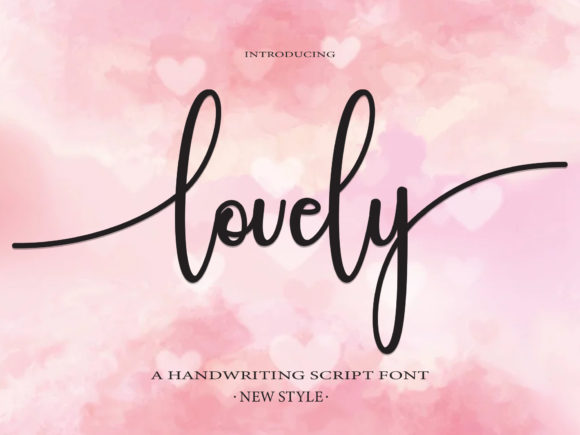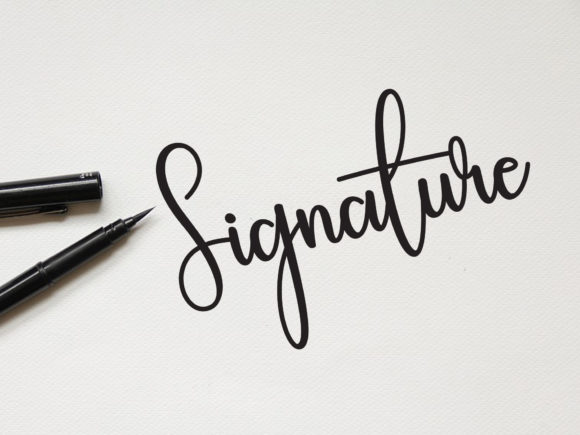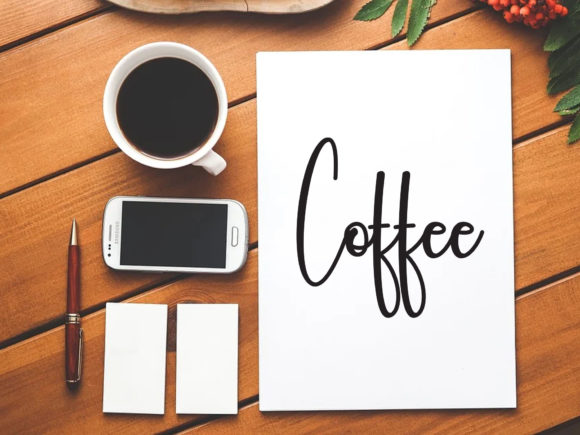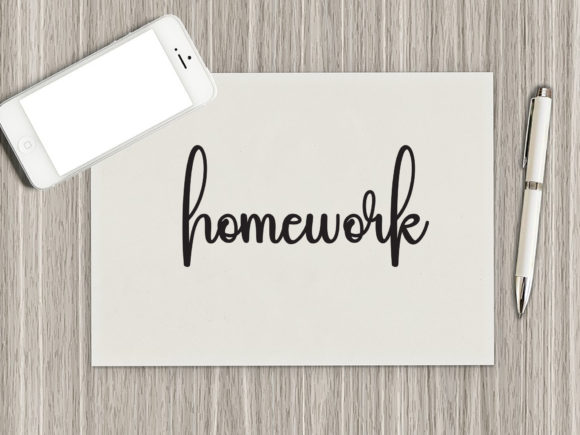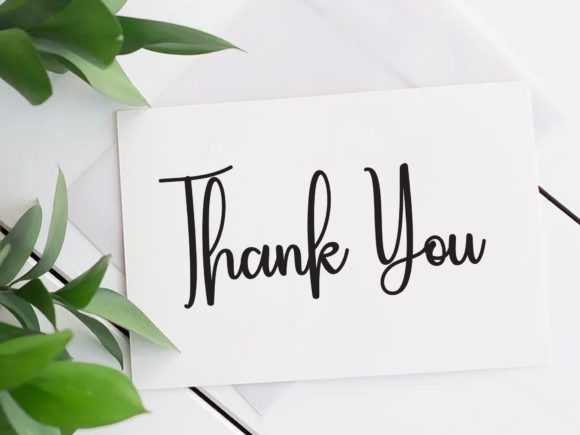
About Lovely Font
Lovely is a delicate and thin lettered handwritten font that is made with great care in order to produce the expected outcomes. This font can be used for writing various kinds of products according to their respective needs.